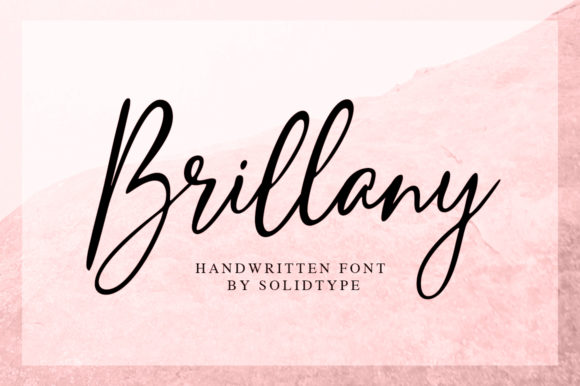
Prepare to be captivated by Brillany, an exquisite handwritten font that embodies the essence of modern sophistication. Its graceful strokes and elegant curves dance across the page, leaving a trail of unforgettable impressions.
Step into a world of creative possibilities with Brillany. From branding projects that demand distinction to headings that command attention, this font elevates every design to its pinnacle. Whether you're crafting wedding invitations to be cherished or logos that leave a lasting mark, Brillany will transform your words into works of art.
Discover the allure of Brillany in its versatility. Its adaptable nature seamlessly complements a myriad of design styles, making it the perfect choice for labels that exude elegance or signatures that radiate charm. With Brillany, your creative aspirations know no bounds.
Unleash the power of Brillany and witness the transformation of your designs. Its modern and fashionable aesthetic will captivate your audience, leaving them spellbound by your unparalleled creativity.